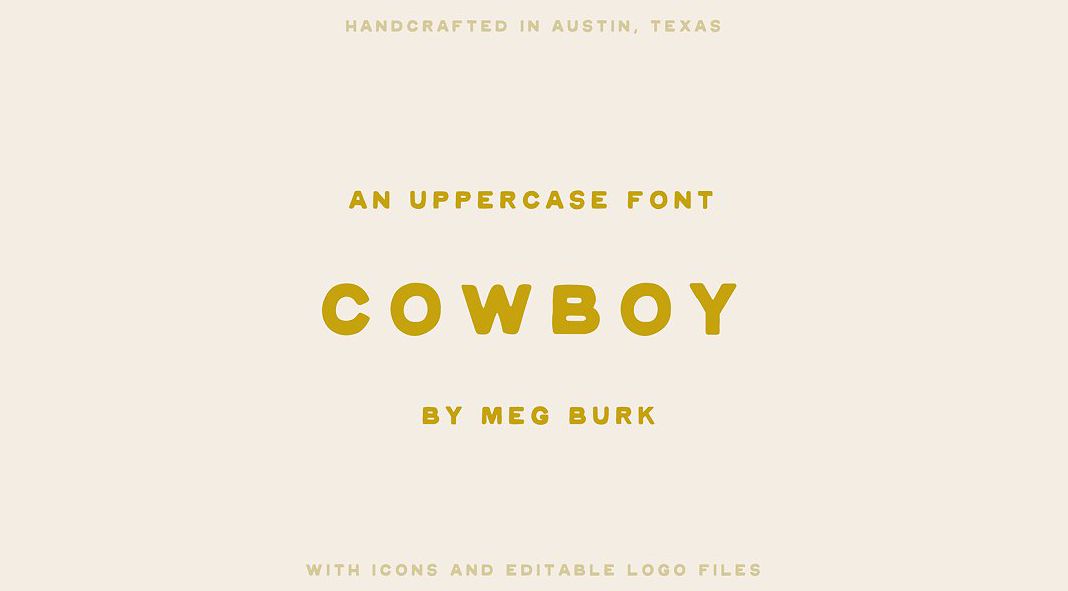
If you’re looking for a hand-lettered font that’s perfect for any occasion, you might want to check out Cowboy by Meg Burk. This uppercase font has a distinct style that exudes both toughness and playfulness, making it versatile for a variety of applications.
Cowboy’s letterforms are reminiscent of vintage Western typography, with rough edges and uneven strokes that suggest a handcrafted feel. However, it’s not just limited to Wild West themes. The font’s boldness and character make it a great choice for a range of designs, from rustic to contemporary.
One of the things that make Cowboy stand out is its versatility. You can use it in paragraphs or as large lettering on posters, signage, or social media graphics. The possibilities are endless, and the font’s unique personality ensures that your designs will catch the eye.
Additionally, the Cowboy font comes with a set of icons and logos that you can incorporate into your projects. These illustrations reflect the font’s playful and adventurous spirit, and they add an extra layer of interest to your designs.
Another thing to love about Cowboy is its accessibility. The font is easy to read, even in smaller sizes, thanks to its boldness and clear letterforms. It’s available in the OTF format, which means you can use it in a range of design programs.
In summary, if you’re looking for a hand-lettered font that’s both playful and bold, the Cowboy typeface by Meg Burk is worth considering. With its versatile style and range of applications, you can use it in a variety of designs, from Western-themed projects to modern designs that need a touch of character. Plus, the added icons and logos make it even more fun to work with.